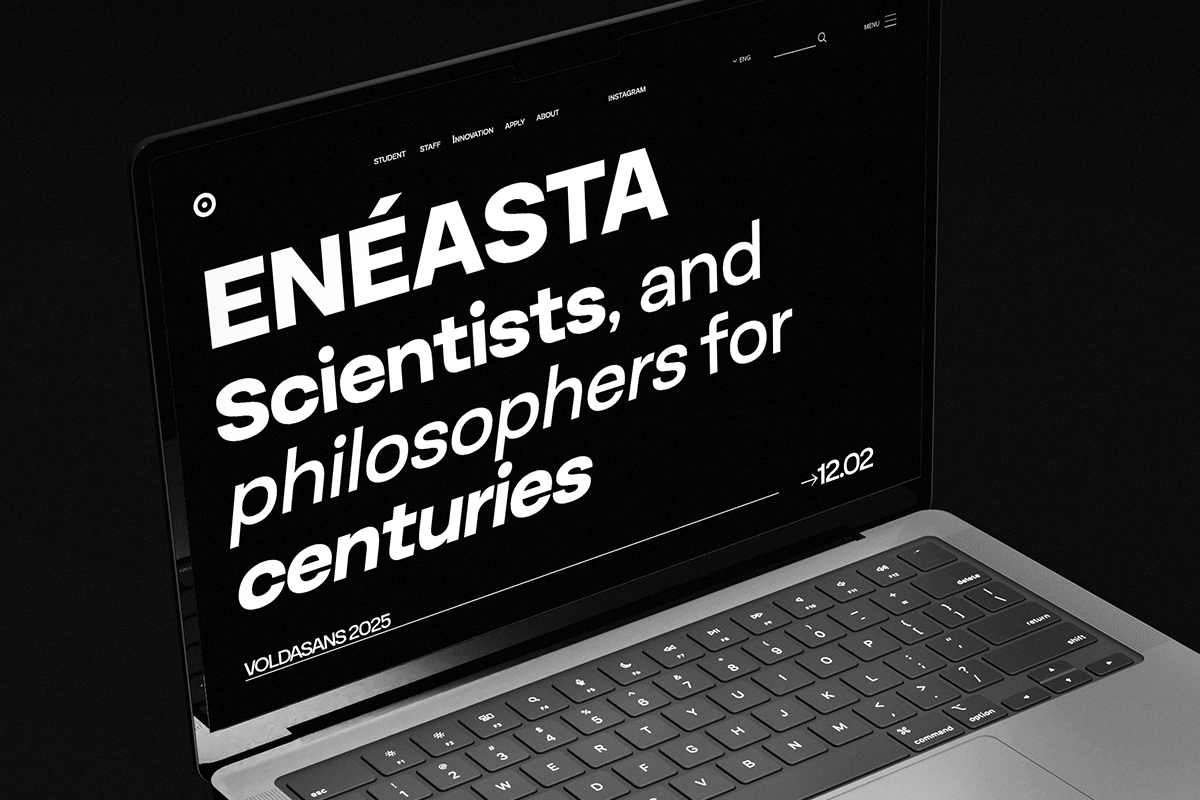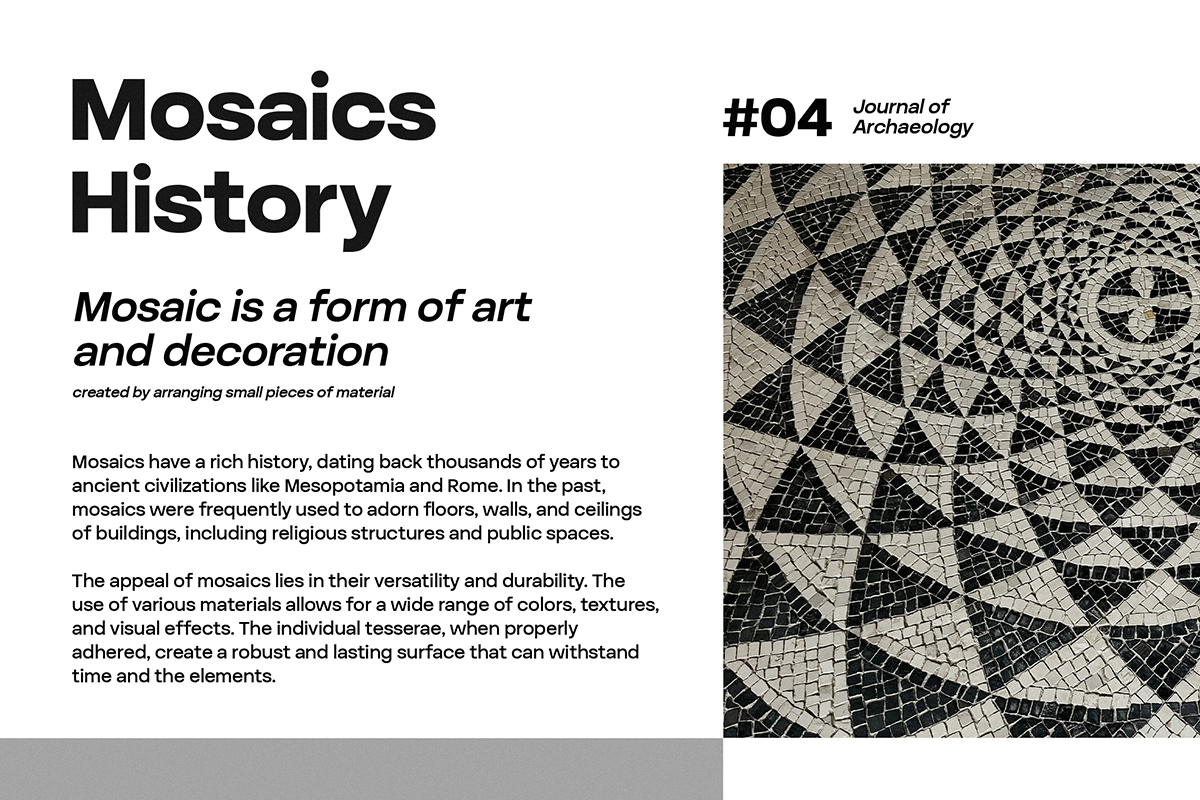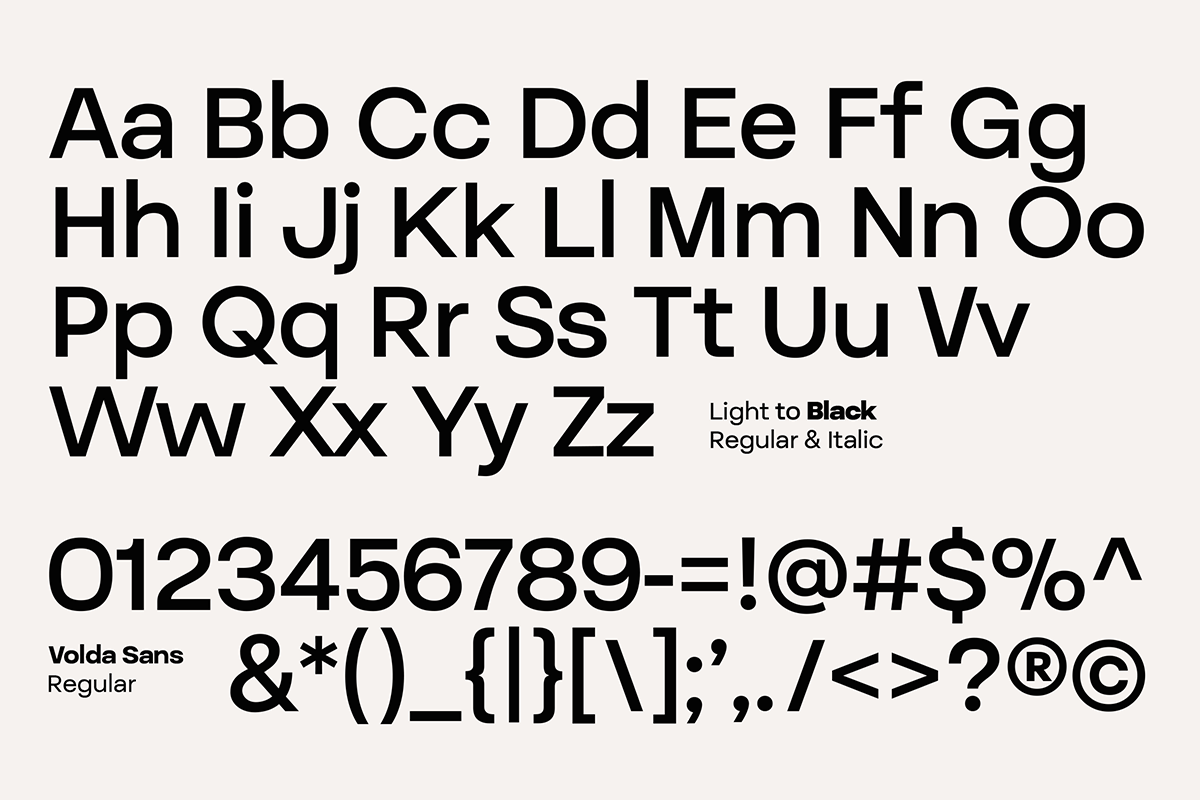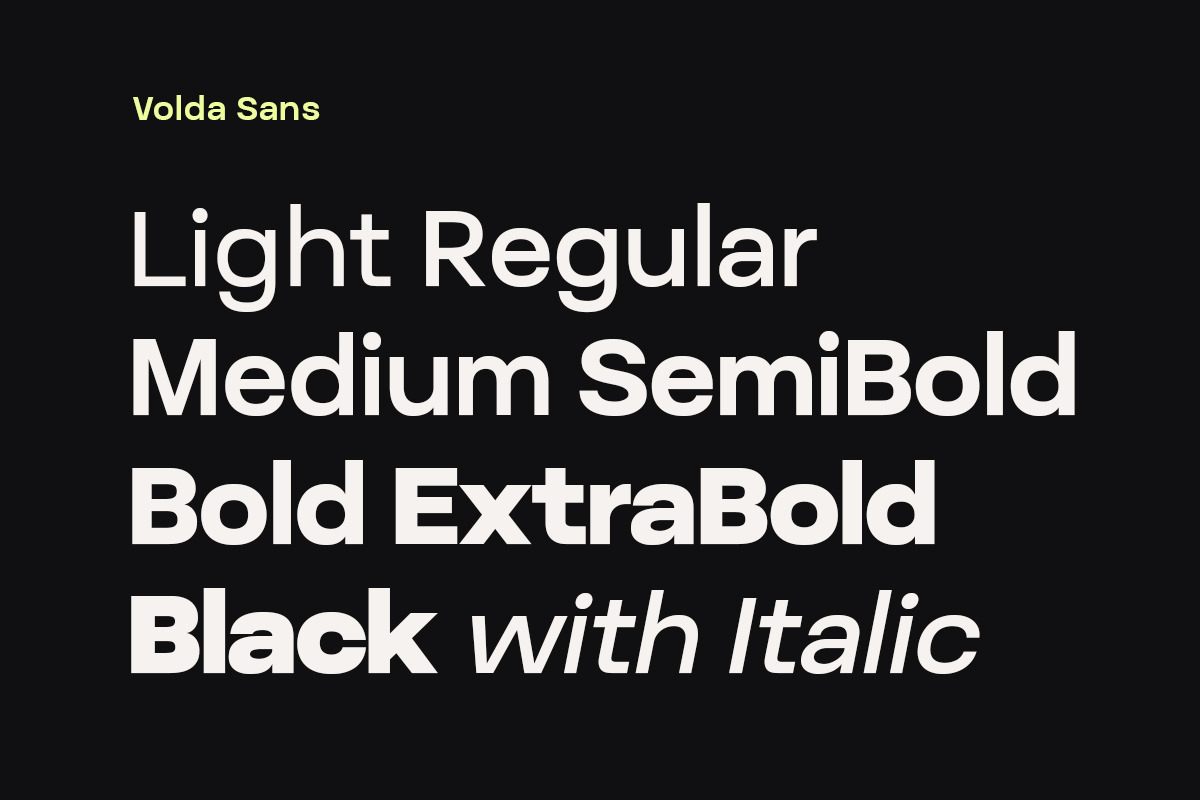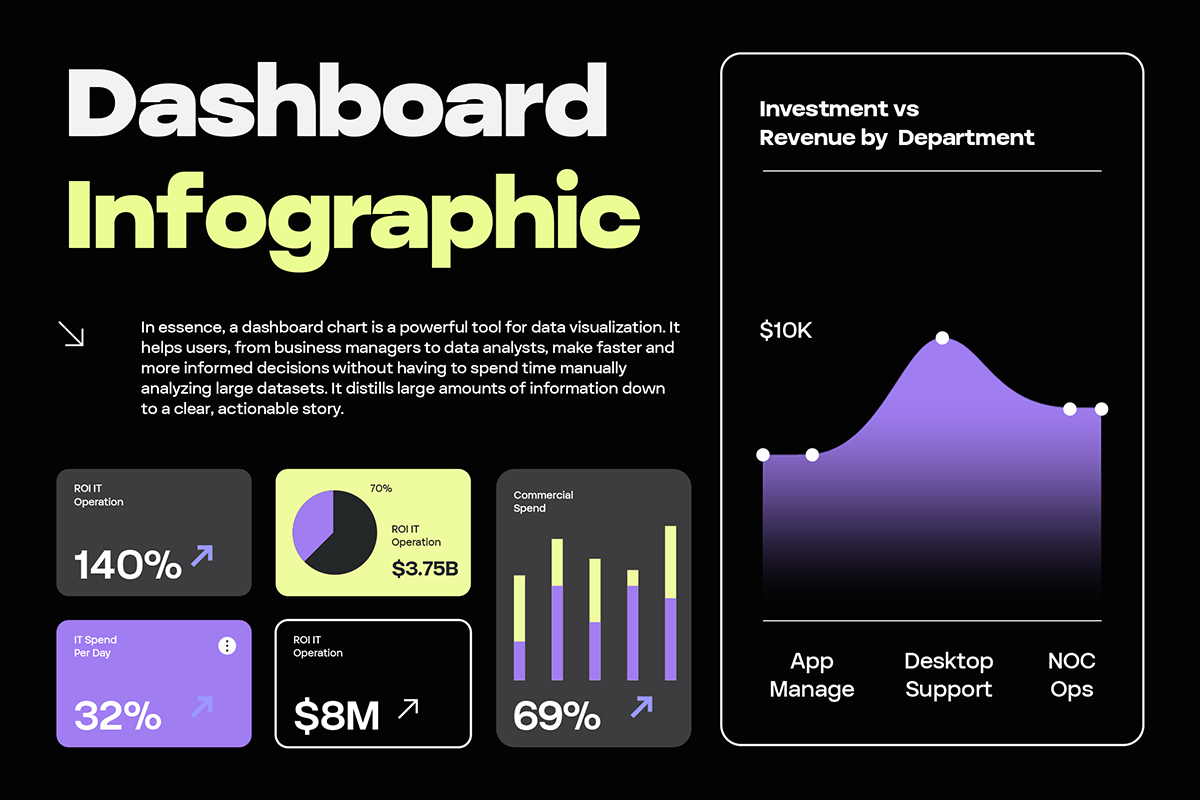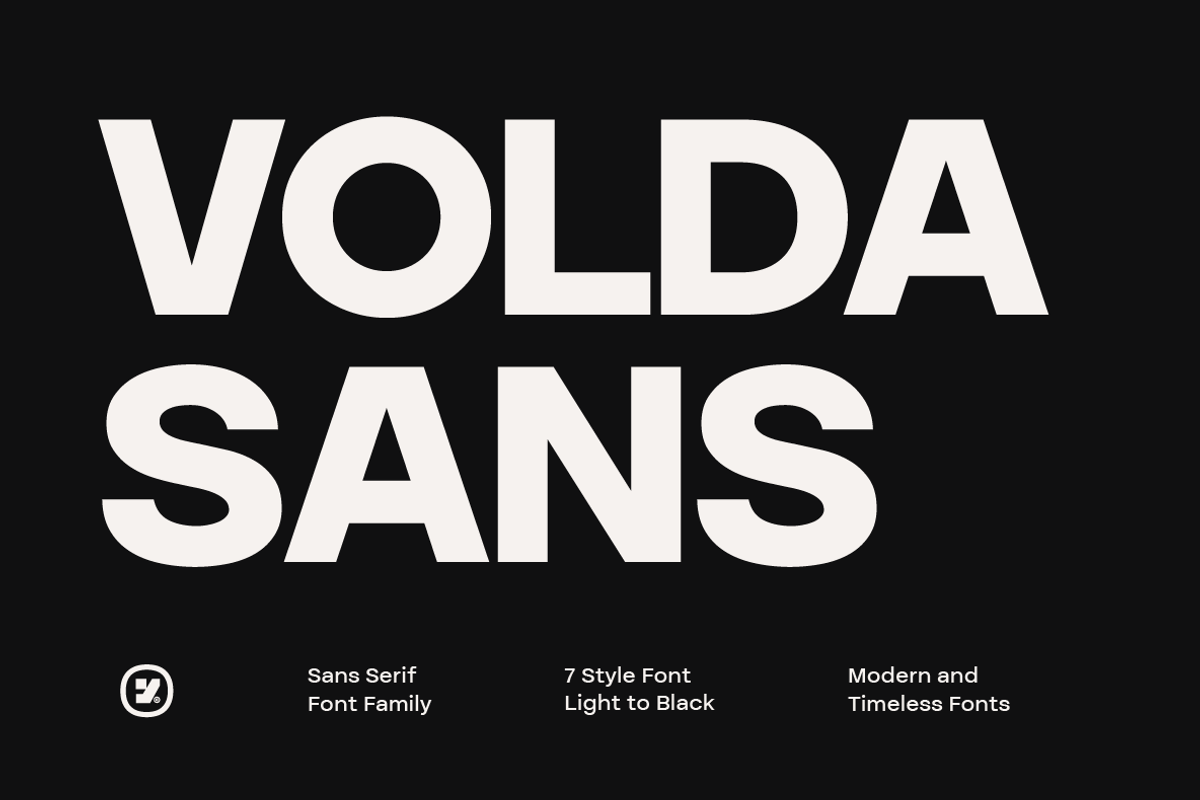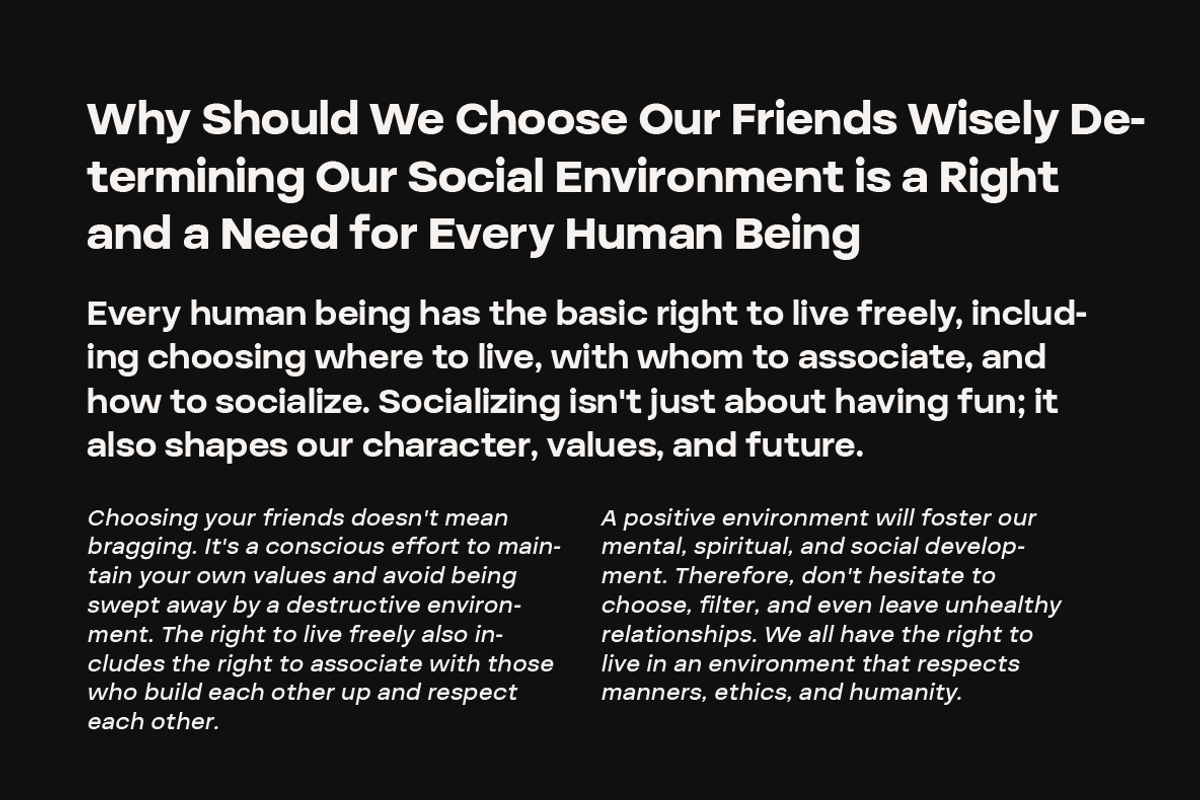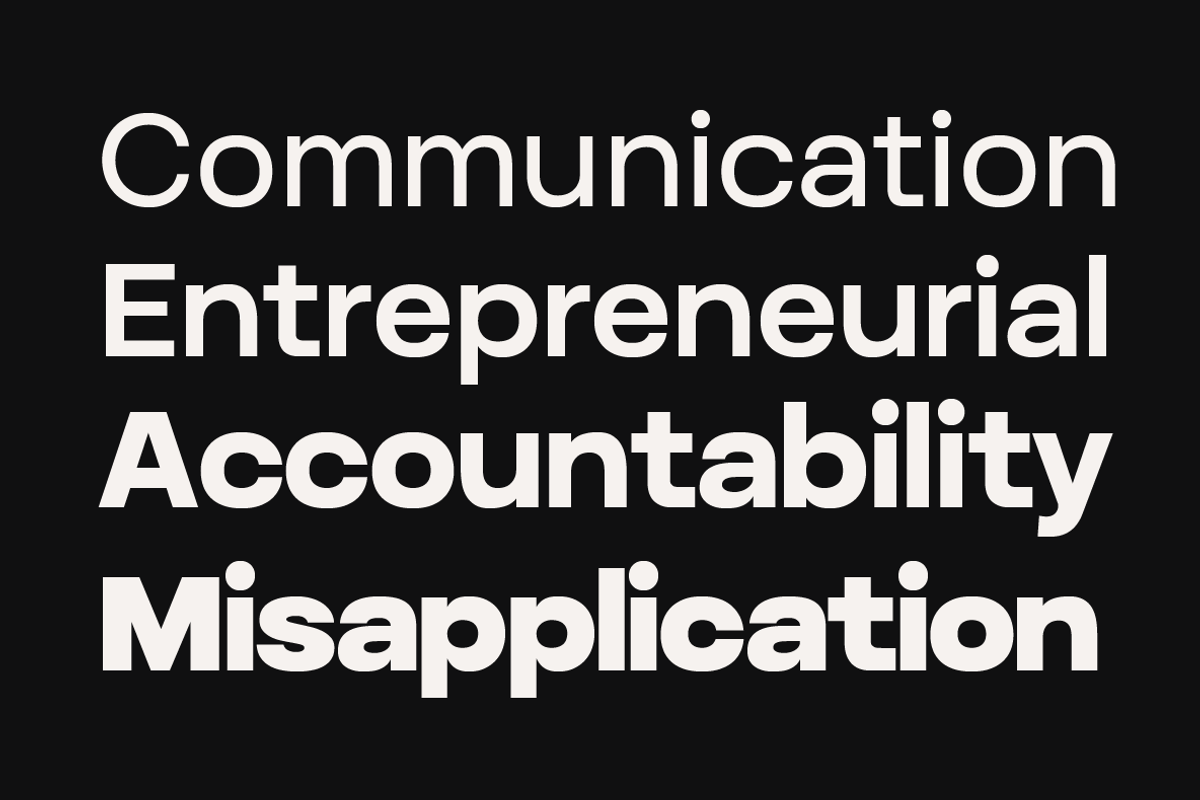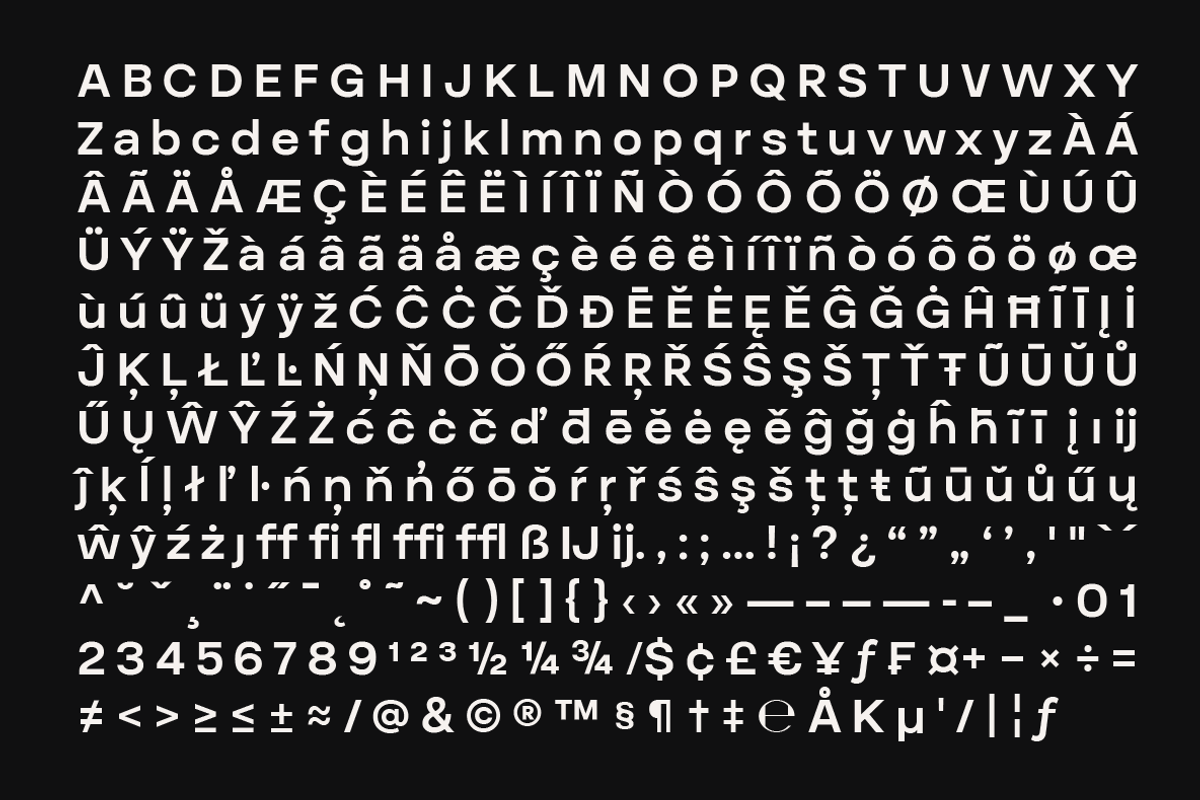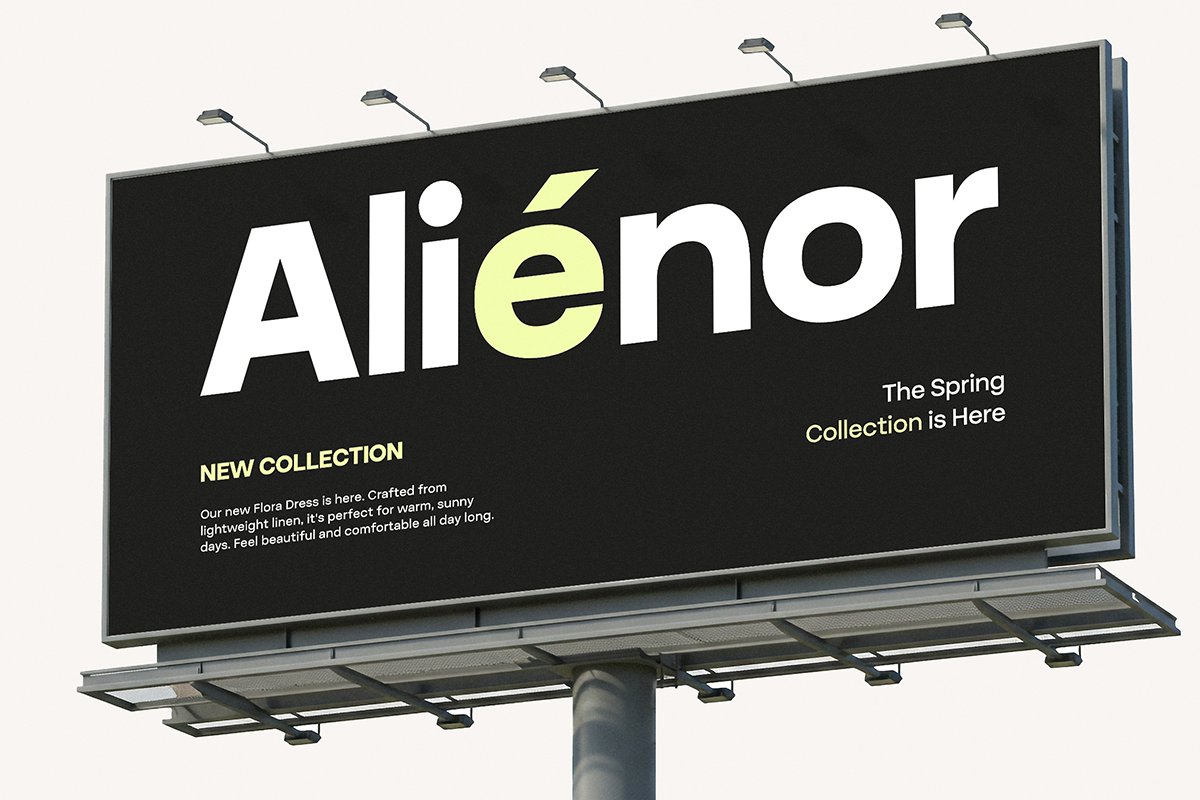
Volda Sans - Modern Sans Serif
Volda Sans is a modern sans serif font designed with clean shapes and versatile proportions. It comes in 7 weights from Light to Black, each equipped with matching Italic styles, giving you a total of 14 fonts for maximum flexibility.
With its balanced letterforms and smooth readability, Volda Sans is perfect for a wide range of design needs—whether for branding, editorial layouts, web design, packaging, or professional presentations. The lighter weights offer a sleek and minimalist feel, while the heavier weights deliver bold impact for headlines and attention-grabbing typography.
Whether you need elegance, modernity, or power, Volda Sans provides the right style to elevate your creative projects.